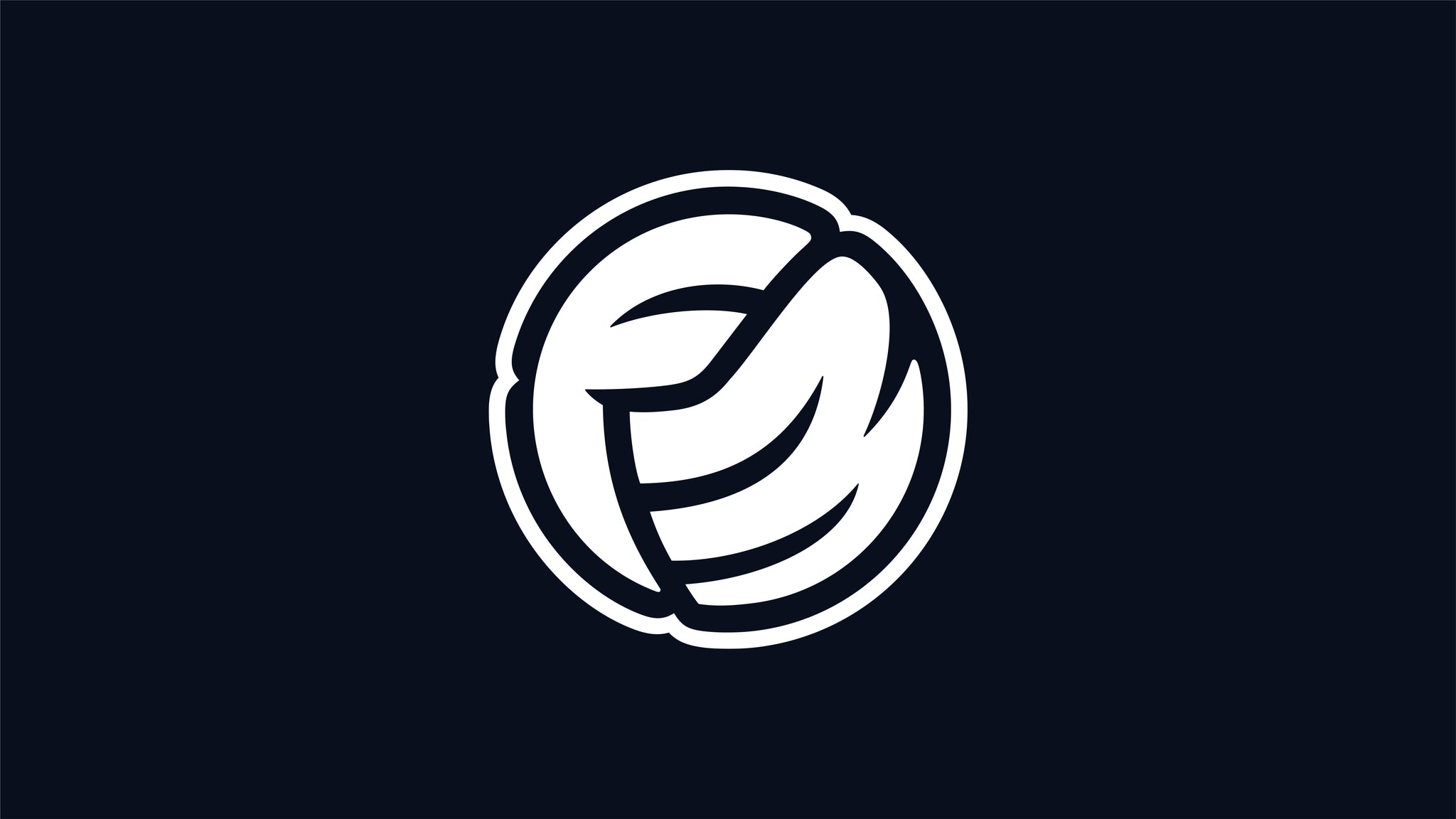
A game-changing season. Ahead of its 2025 release, Football Manager faced a pivotal shift.
A new engine
New licenses. Women’s football, for the first time. The brand needed to move forward and signify a moment of change. We created an identity that once again sets Football Manager apart from the crowded landscape of football gaming brands.
Reflecting the energy of our icon
Working with Pangram type foundry we crafted FM Universe. The custom typeface is born from the cues and details of the brand symbol, extending the energy of Football Manager into every letter, word and headline and being the unifying element that ties the identity together.
Well marked
In a field defined by familiar codes, Football Manager needed to break away. At the heart of the system is a new symbol from the geometry of the three-panel ball. Simple. Distinctive. Rooted in the game. A mark that announces a new chapter and underlines Football Manager’s authority.
Our technical area, our stage to shine
We built a system inspired by the manager’s stage: the technical area. It’s where strategy, decisions, and control shape the game. As a design device, it brings the same focus and intensity to the brand – becoming a graphic language unique to Football Manager.
You’re in the game
A single brand experience
Our graphic system has the flexibility to shine across every touchpoint: framing social content, shaping layouts, inspiring digital experiences and bringing clarity and consistency across the brand. The result: a slick, technical, immersive brand world that feels unmistakably Football Manager.
Made to move
Every pass, every run, every goal carries rhythm and energy. Our motion behaviours echo that pace and passion to create a living identity as dynamic as the game itself.
Fresh threads